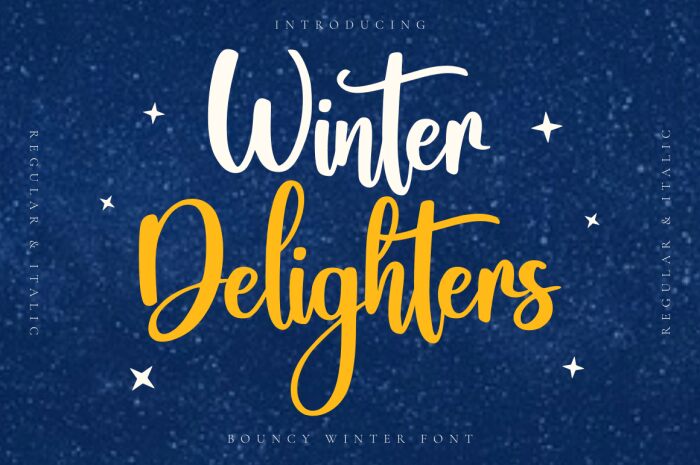
Winter Delighters, designed by Rissyletter Studio, stands out with its semi-light weight and handwritten style that conveys a sense of warmth and personal touch. Its elegant curves and playful swashes evoke the joyous spirit of winter while maintaining legibility, making it an excellent choice for a variety of creative projects. Whether gracing holiday cards, festive advertisements, or seasonal packaging, Winter Delighters adds a touch of personalized charm that is sure to captivate and engage audiences. The font's aesthetic appeal lies in its balance between casual spontaneity and refined sophistication-a versatile typeface perfect for those seeking to imbue their designs with a handcrafted essence.
Winter Delighters
Rissyletter Studio
Nur Rohman Rizki